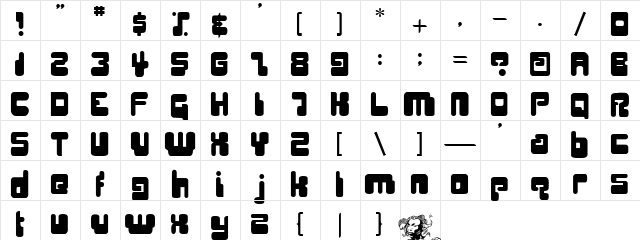
Digifit Normal Free Font
Digifit Normal
Design Context for Digifit
Digifit is a composed and adaptable typeface that performs quietly and consistently across a wide range of design contexts.